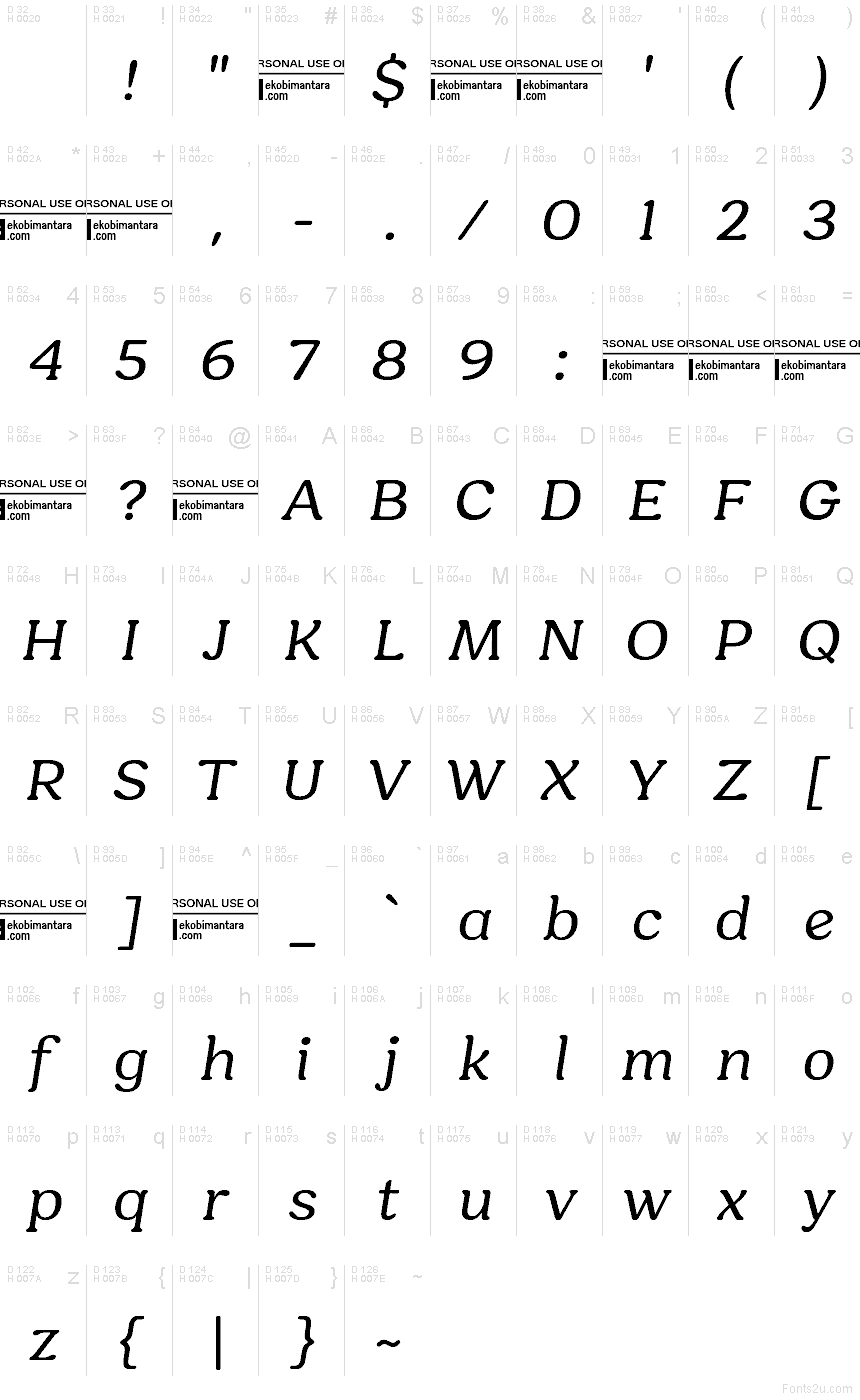
Hornbill Trial Italic
Hornbill Italic font by Eko Bimantara is a free italic retro display font. Part of the Hornbill family, it solves a familiar challenge: getting that vintage swing without sacrificing clear, confident headlines. The forward slant and gently flared serifs feel inky and hand-drawn, while the steady modulation and roomy counters keep text crisp at size. It’s lively, not fussy—nostalgic curves on a sturdy skeleton.
Using Hornbill Italic, you’ll get flowing rhythm for posters, boutique branding, beverage labels, editorial pull quotes, restaurant menus, and album covers. The spacing holds together when set big and tight, adding a warm, tactile snap. For balance, pair this free font with the Hornbill upright or a clean grotesque sans; keep the italic as the star and let the body copy step back.